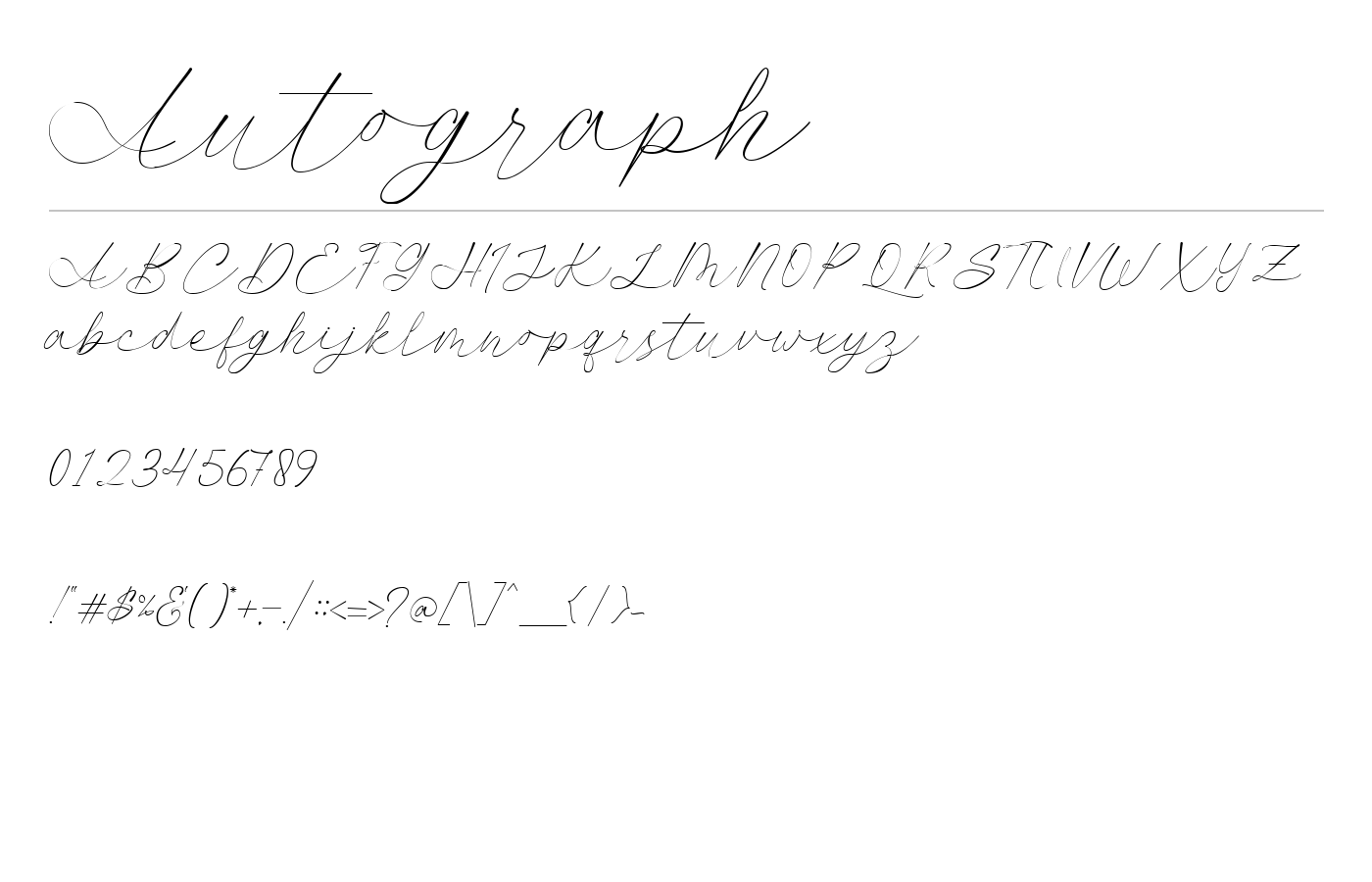
Autograph is a delicate, elegant script font that mimics natural, flowing handwriting with fine, light strokes and graceful curves. Its slender, airy letterforms exude sophistication and charm, making it ideal for personal branding, invitations, and luxury designs where a refined and intimate touch is desired. This font works best in larger sizes for headlines or logos, adding a stylish, handwritten feel to projects that seek a unique and elegant personality.
Autograph Font
About Autograph Font